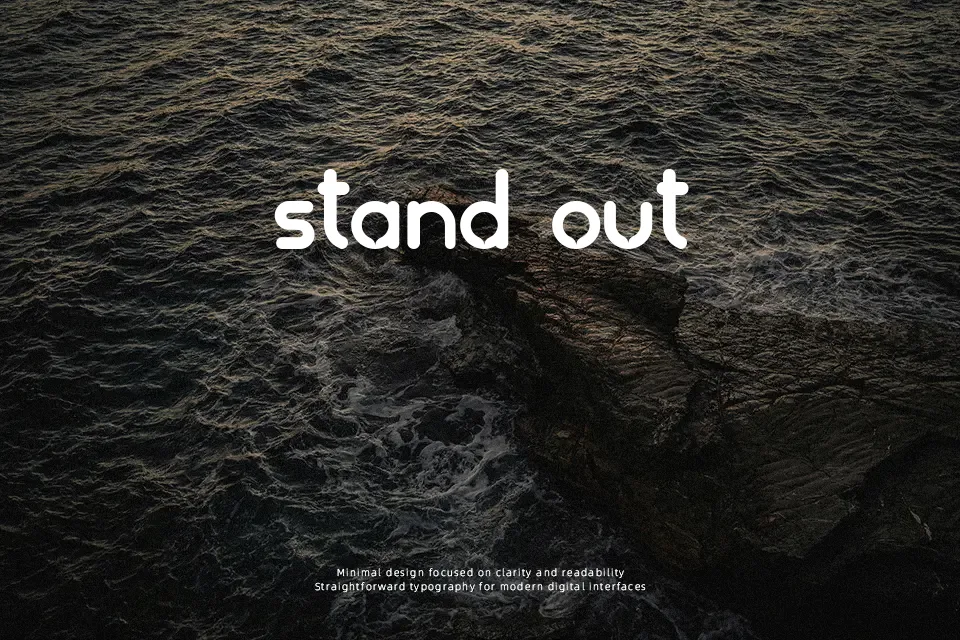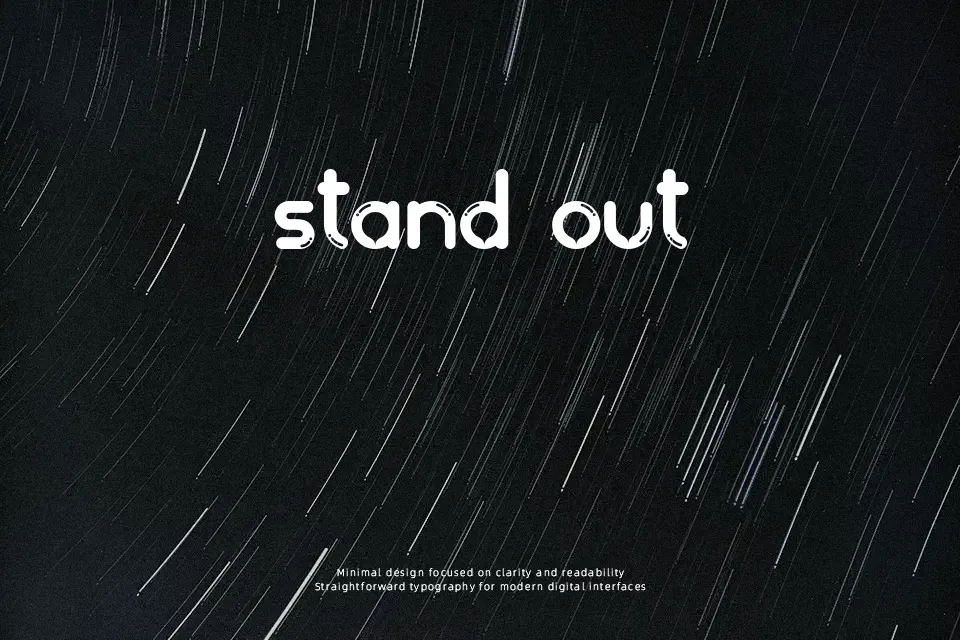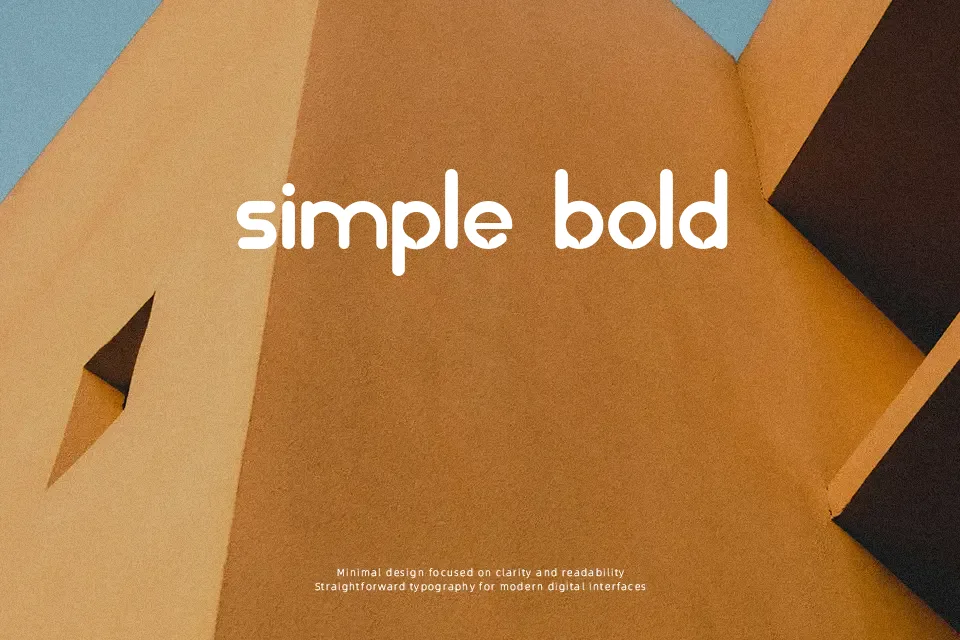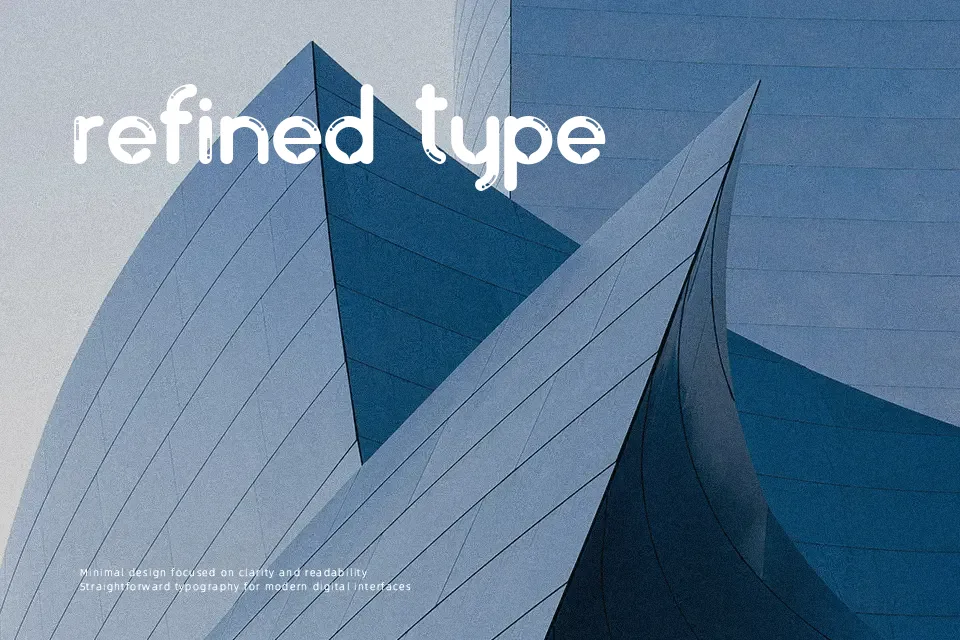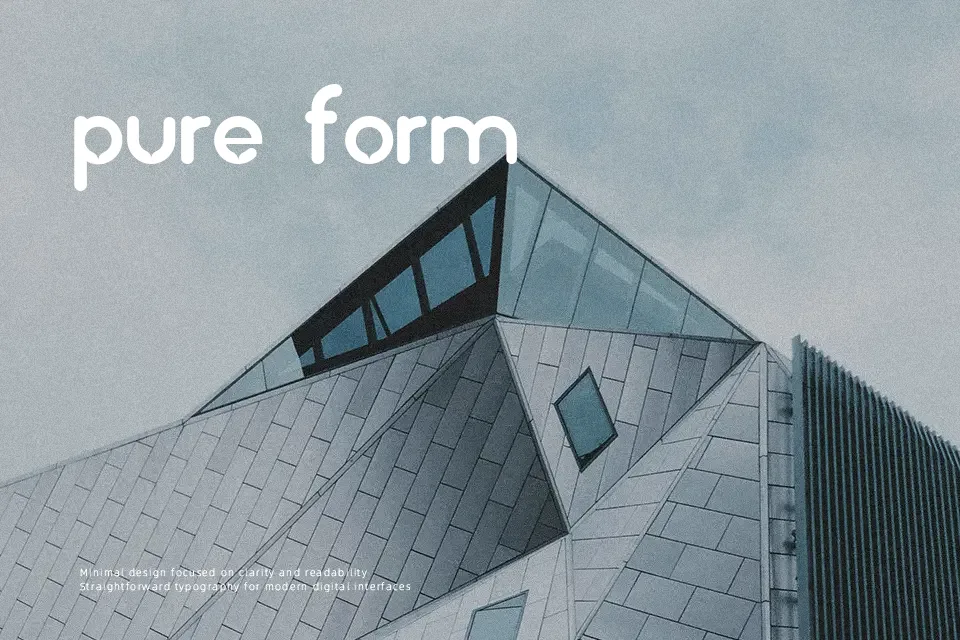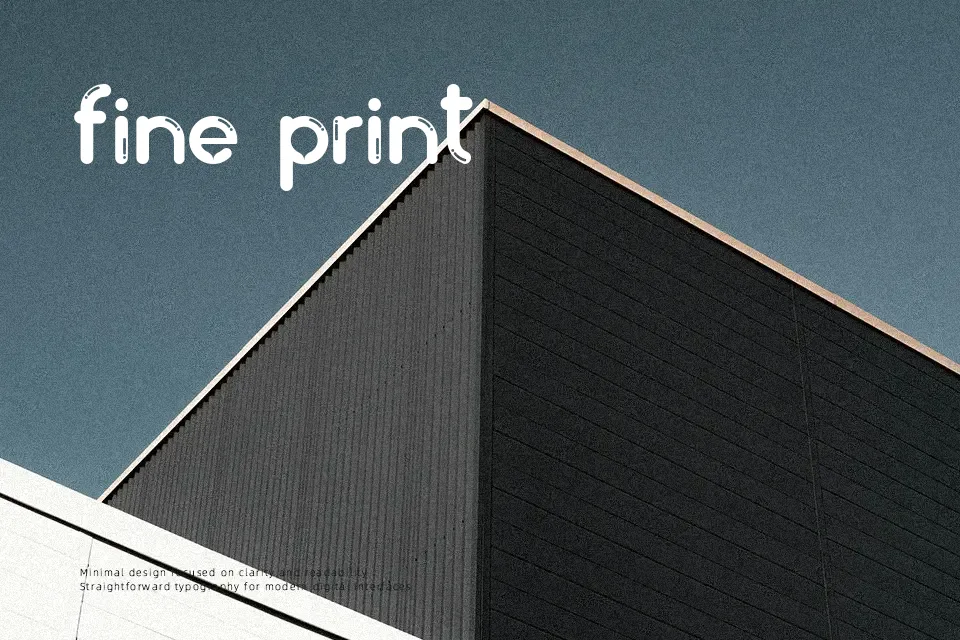
Balonez Fantasia Font
Balonez Fantasia leans into thick, rounded strokes and a bubbly structure that immediately reads as playful and retro. The spacing is fairly tight and the letters feel like they are dancing along the baseline, which works well when you need a bold display word rather than long sentences. Its decorative forms suit short titles on posters, album covers, kids’ event graphics, or experimental branding where legibility at small sizes is less critical. However, the quirky shapes and dense rhythm can quickly feel heavy in long text or formal layouts, so it functions best as an accent font instead of a primary typeface.
retro event posters
kids party invitations
playful branding wordmarks
social media headline graphics
small UI labels or captions
serious editorial layouts
Perfect for branding, headline, and logo, with a creative and decorative style.